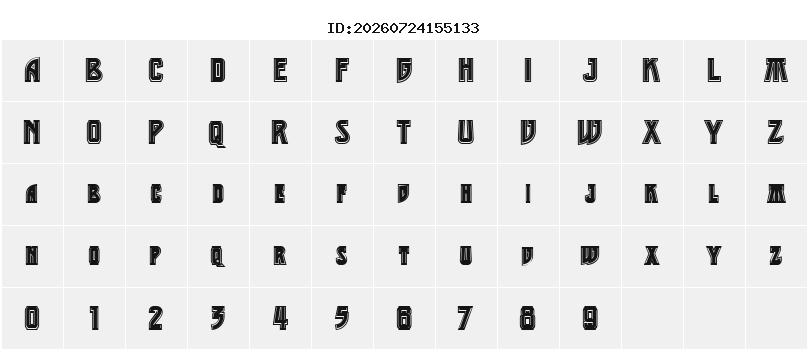
• Font Name: Middle Earth NF
• Designer: Nick Curtis
• Manufacturer: Nick's Fonts
About Middle Earth NF.ttf
Middle Earth NF.ttf is a modern, elegant sans-serif font designed for ultimate readability and visual harmony. Perfect for branding, headlines, web design, and print materials.